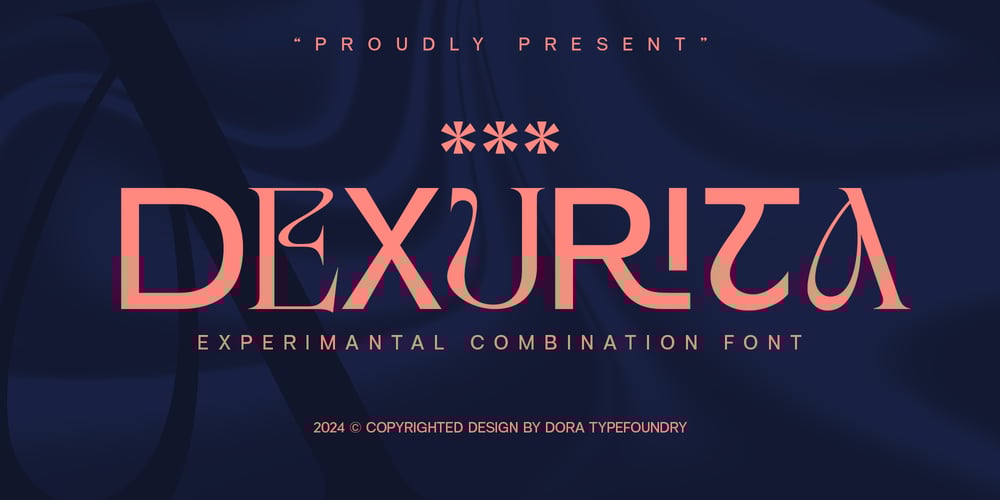
Dexurita Font Family was designed by Zahratul Laila and published by Dora Typefoundry. Dexurita contains 2 styles and family package options. Dexurita is a mix of modern sans and serif combined in one beautiful and inspiring font. I also love the combination of Sans and serif which makes it classic and nostalgic. Dexurita brings a touch of charm and sophistication. It is recommended that you can use this font for magazines, posters, logos, titles, quotes, and is suitable for headlines. which makes your text stand out! You can see in the picture. Dexurita Regular. Dexurita Outline. Families like this have become a true labor of love, making it as easy and enjoyable as possible. I really hope you enjoy it!Thank You!